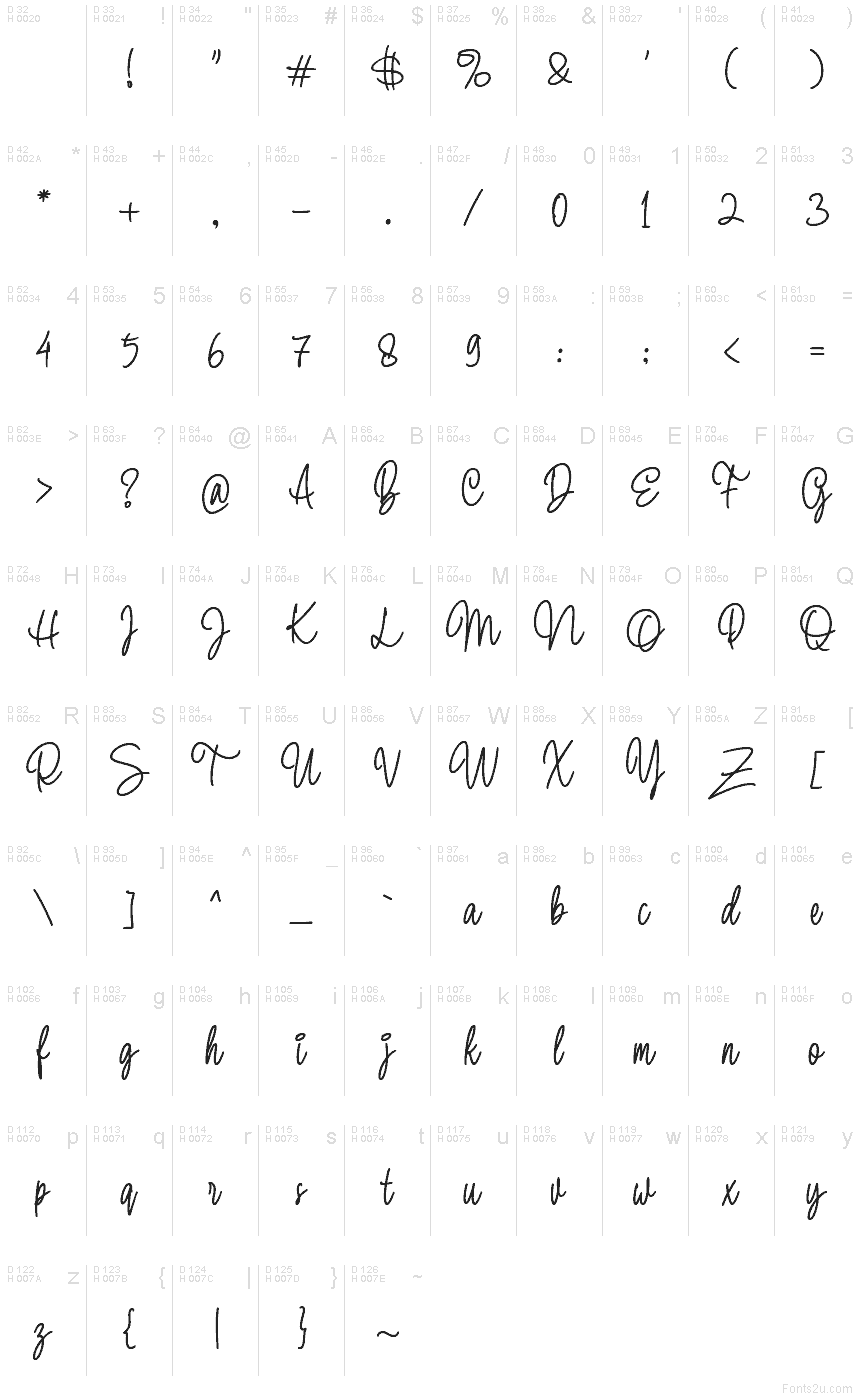
BulgaryReagansScriptDemo
Bulgary Reagans Script font by Letterhend Studio is a light handwritten font, combining elegance and flowing lines with a casual sophistication. With a condensed width and modern script aesthetic, it paints an expressive, inviting picture that effortlessly commands attention.